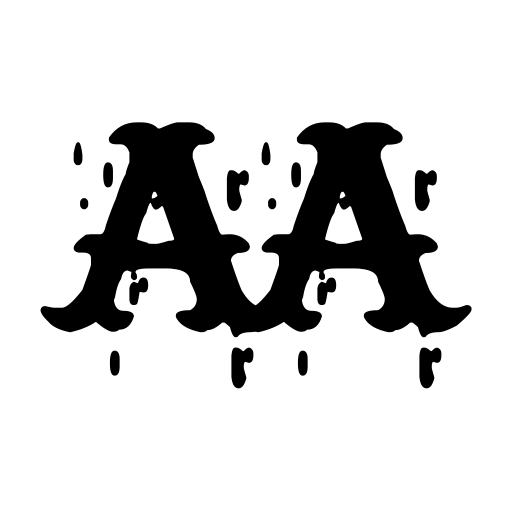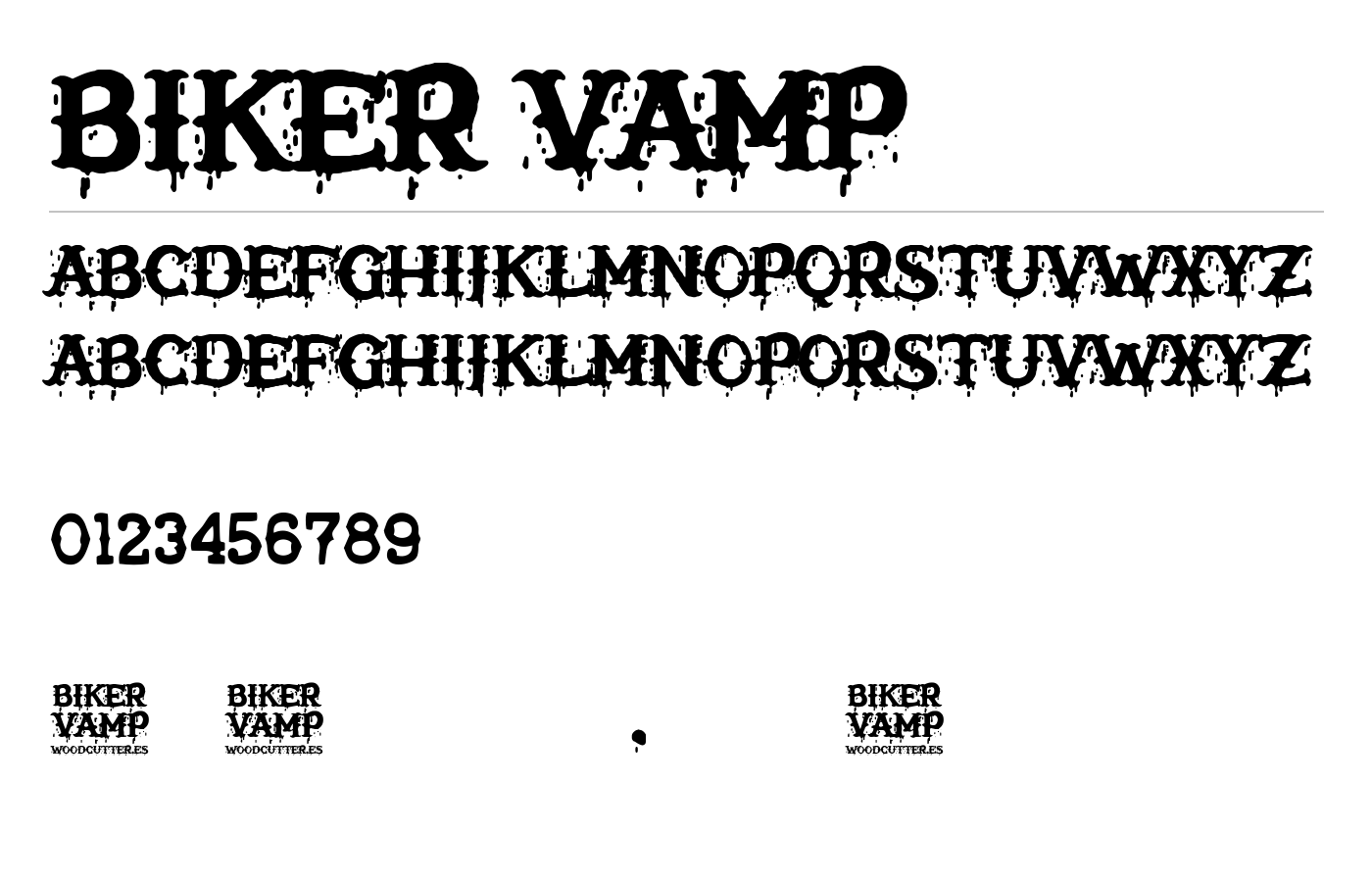
Biker Vamp is a bold serif display font with a distressed, dripping effect that gives it a grungy, edgy personality. Its heavy weight and unique texture make it perfect for eye-catching headlines, posters, and branding that wants to convey a rebellious, vintage vibe with a touch of horror or biker culture. This font works best in creative projects where a strong, dramatic impact is needed rather than body text.
Biker Vamp Font
About Biker Vamp Font
| Font family | Biker Vamp Font |
| Designer | Jordi Manero Pascual |